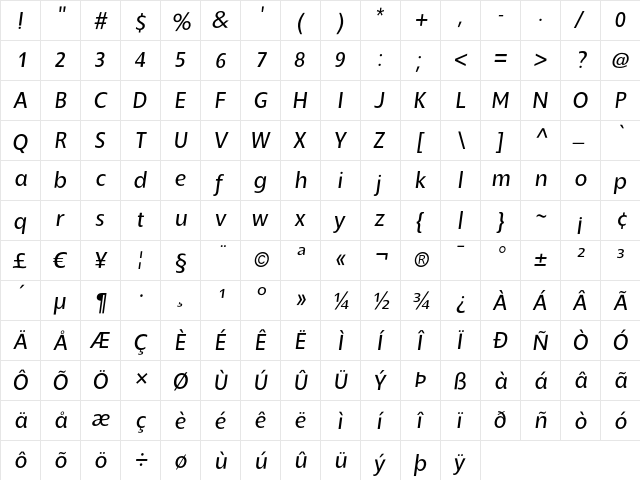
Slippy Italic
Design Context for Slippy Typeface
Slippy takes a measured approach to typography — its balanced proportions and neutral character make it a reliable workhorse for both digital and print work. Its italic angle brings a sense of urgency and motion to the letterforms.
Pro Tip: Try Slippy for annotation and caption copy alongside an upright companion — the contrast in angle creates a dynamic but ordered typographic system.